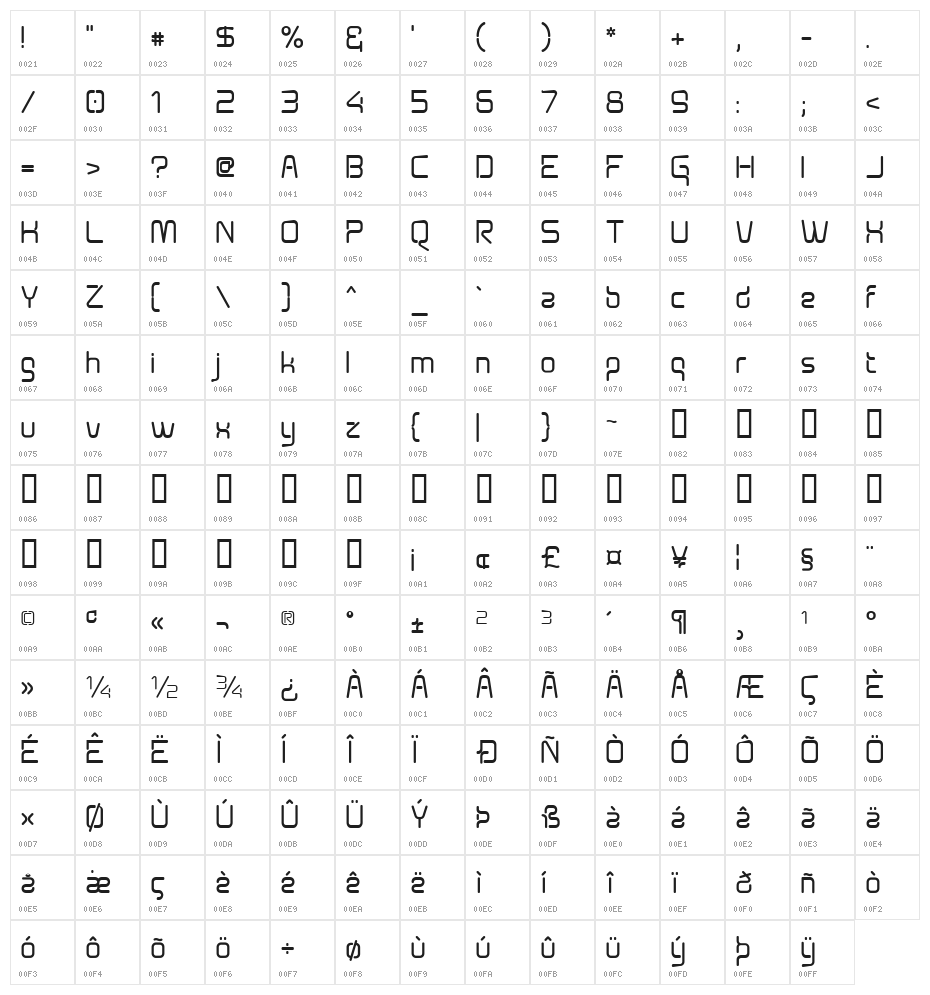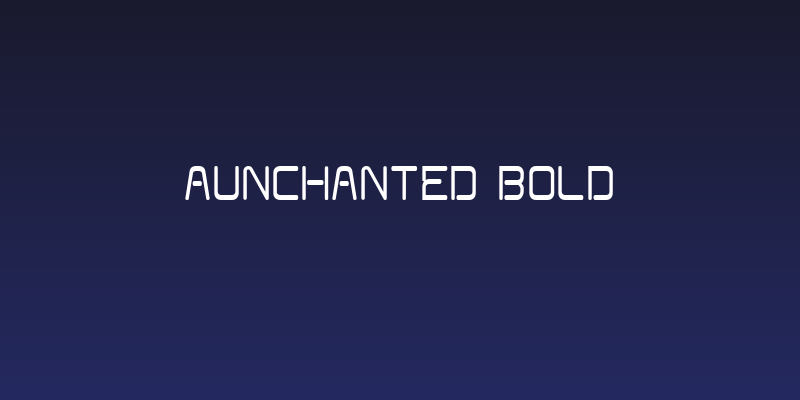
Aunchanted Bold Font
Aunchanted Bold Description
This font features a modern, geometric design with rounded edges and a monospaced appearance. Each character is crafted with a consistent stroke width, giving it a clean and uniform look. The uppercase and lowercase letters maintain a similar height, enhancing readability and creating a cohesive visual flow. Numbers and special characters are designed to match the overall style, ensuring versatility across different uses. The font's futuristic aesthetic makes it suitable for technology-related projects, branding, and digital interfaces.
Use CaseLogos, Headlines, Digital Interfaces
Proposed ProjectsIdeal for tech branding, digital interfaces, and futuristic design projects.